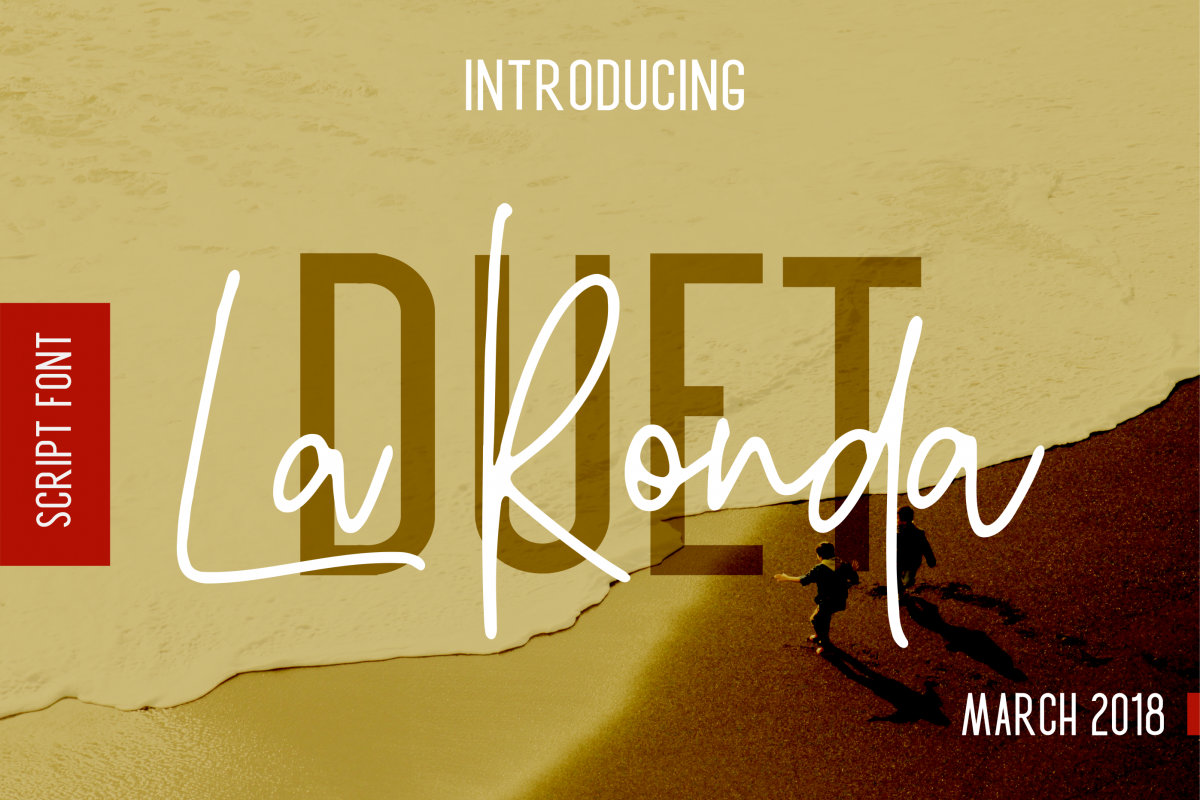
Introducing La Ronda Signature Duet , a fun, contemporary font pair with an elegant character. The pair is created to achieve an effortless typographic harmony. The script font is an authentic freehanded design that will have your work looking professional & more importantly pretty custom made.